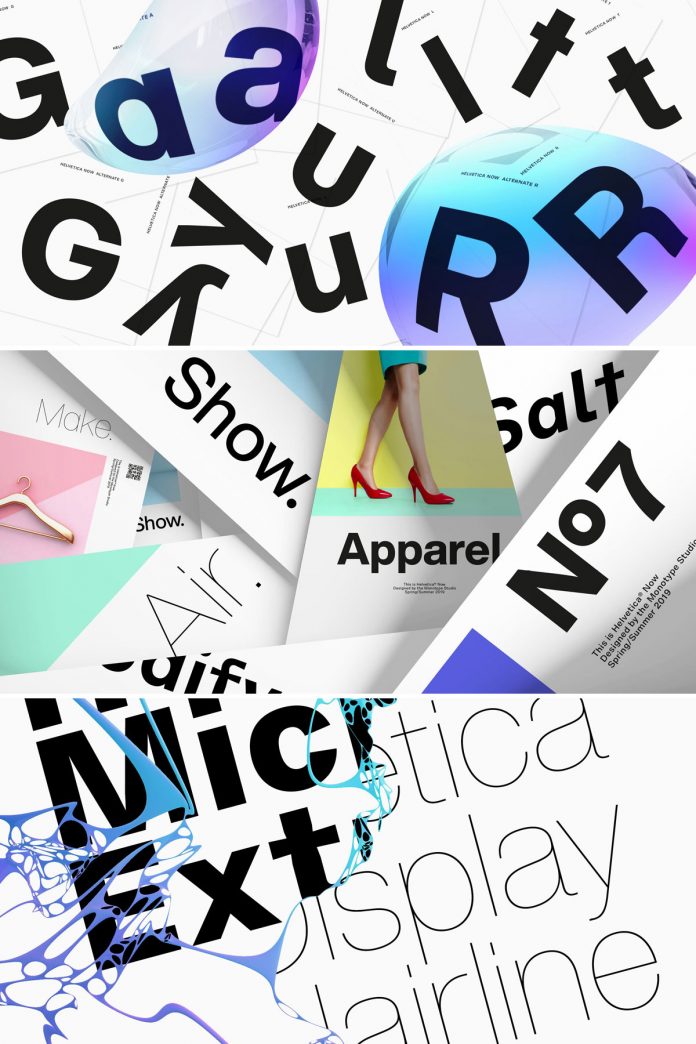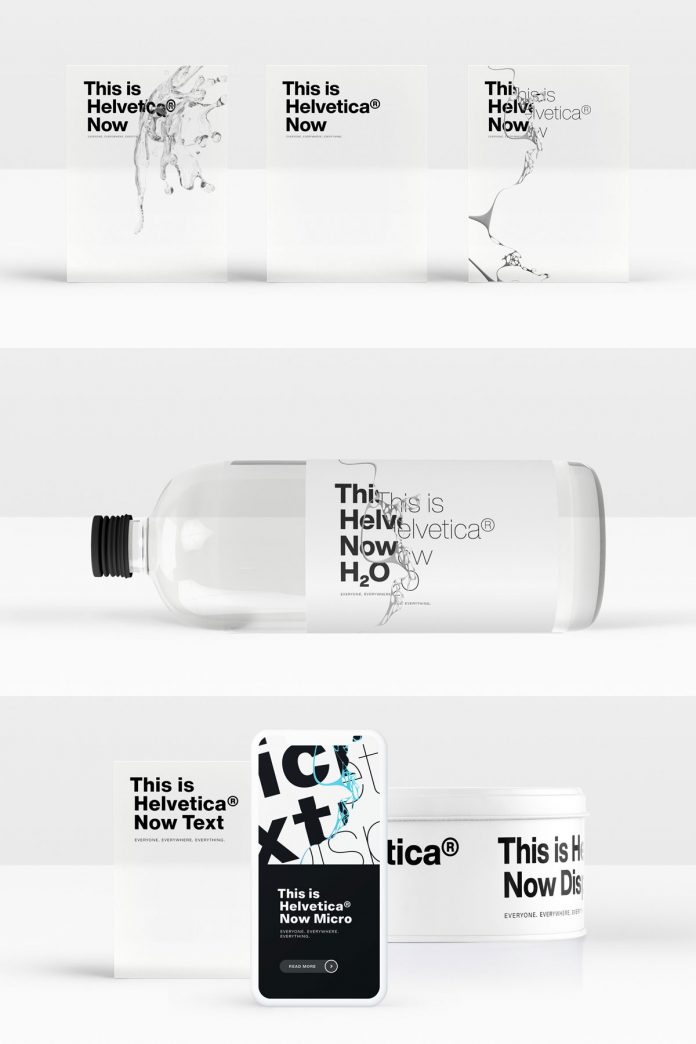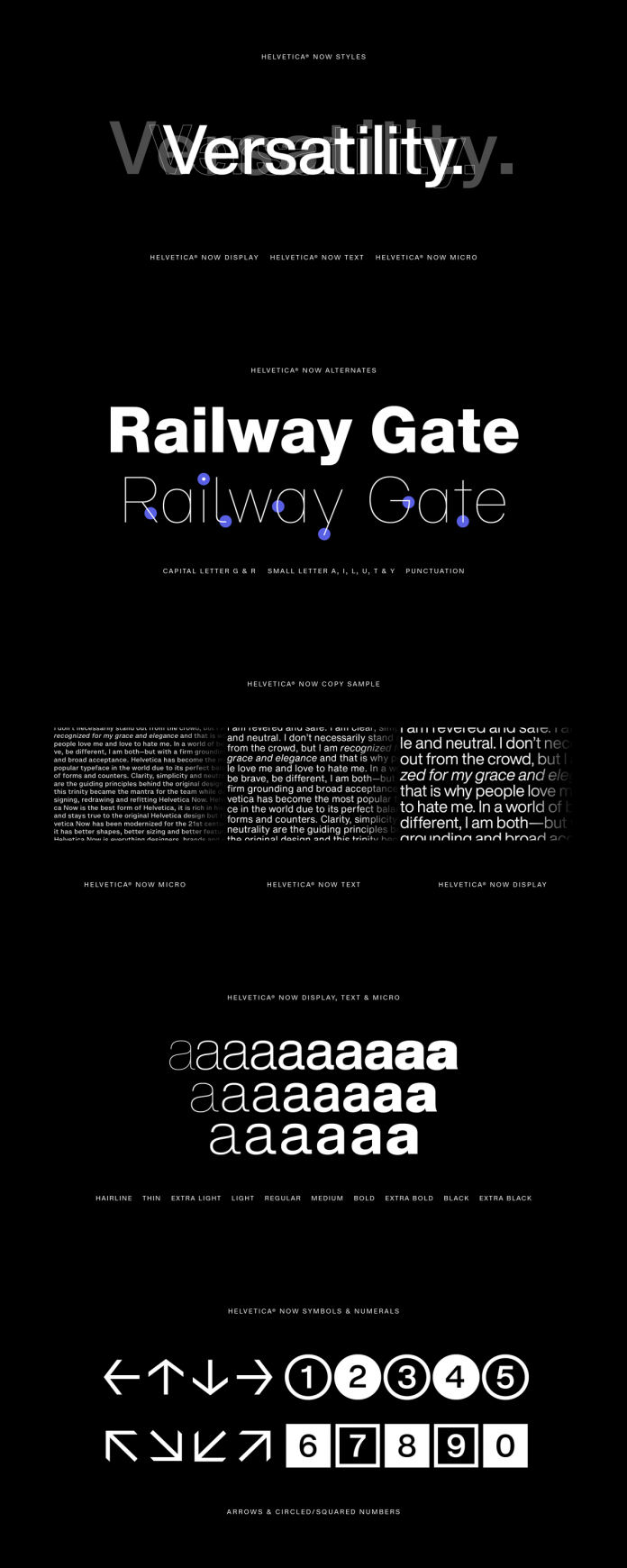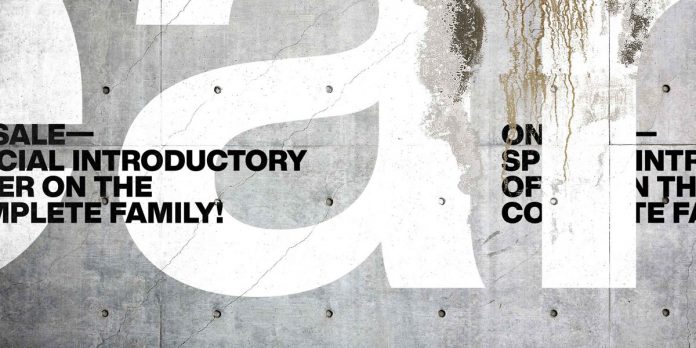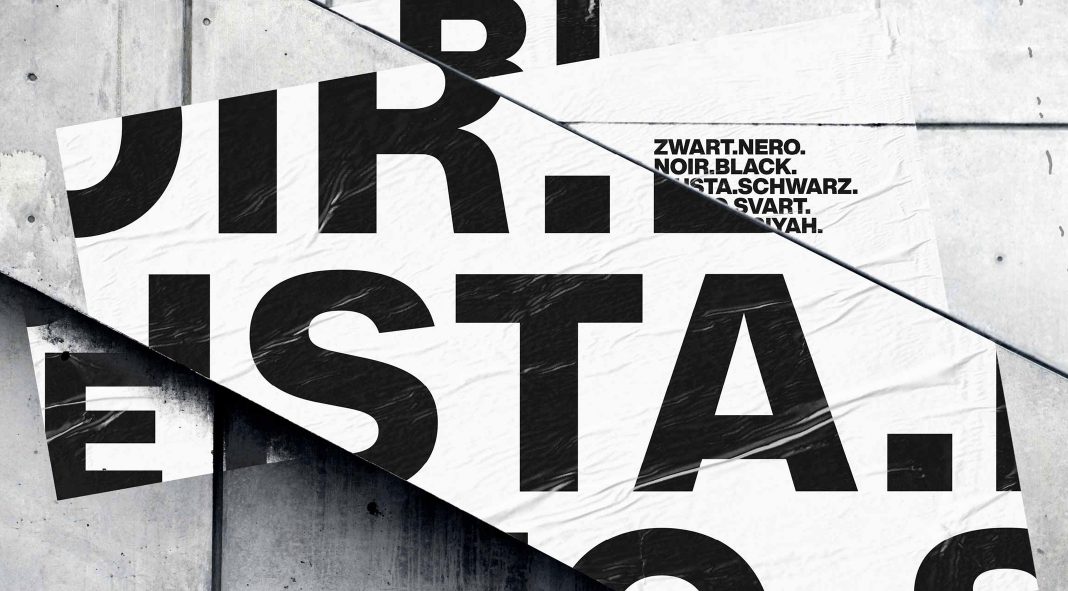
Helvetica Now—the best-known typeface of all time redrawn and refitted for today’s typographic needs.
Available in three optical sizes—Micro, Text, and Display (comprising 48 fonts in total)—every single character in Helvetica Now has been redrawn and refitted to meet a variety of today’s typographic needs. Recently published by foundry Monotype and equipped with lots of new alternate letters—this expansive new edition still preserves the typeface’s typical features of simplicity and functionality, while updating it with certain features for the demands of contemporary graphic design and typography. Learn more below or click on the following link to purchase the family.
The Display versions have been designed to show off Helvetica’s subtlety in headlines while the Text versions were made for perfect legibility, using clean strokes and comfortably loose spaces. Because of its compactness and closed apertures, Helvetica often struggled a little in the past to be legible at tiny sizes. This has been fixed by the new Micro sizes in order to address this issue. These simplified characters masterfully maintain the impression of Helvetica in extra small sizes. The extensive set of alternate characters allows designers to experiment with different tones of voice. Please have a look at the following images or click on the following link to learn more.